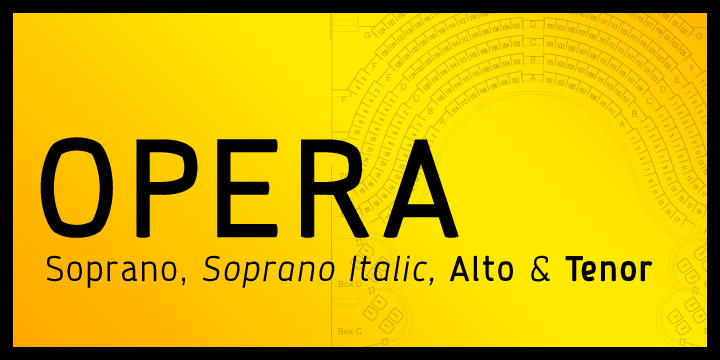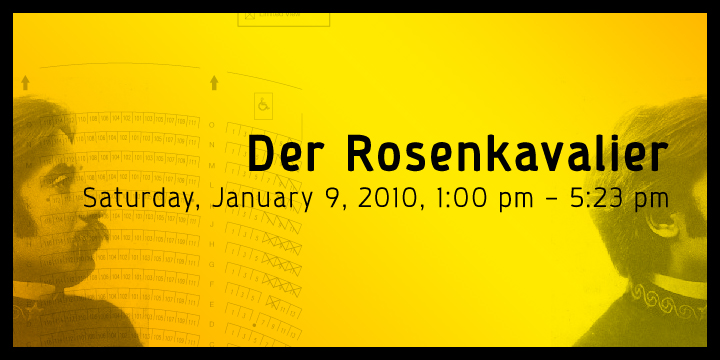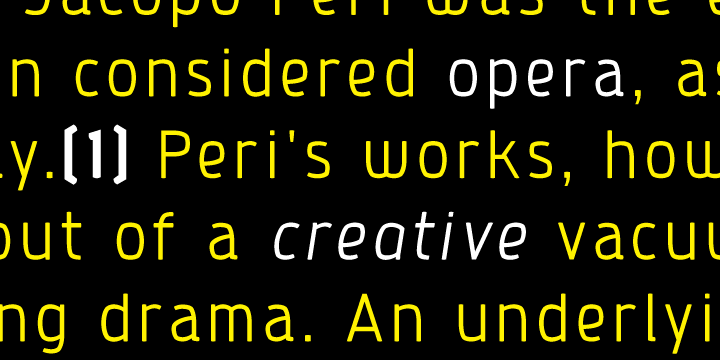
Opera Font Family
Characterized by its quirky counter spaces, Opera is named after the font’s letter “O”, resembling the open mouth of an opera singer.
The 3 weights plus italics can be used individually or together for a variety of applications including magazine body texts or a striking headline.
Opera Soprano
Opera Soprano Italic
Opera Alto
Opera Tenor